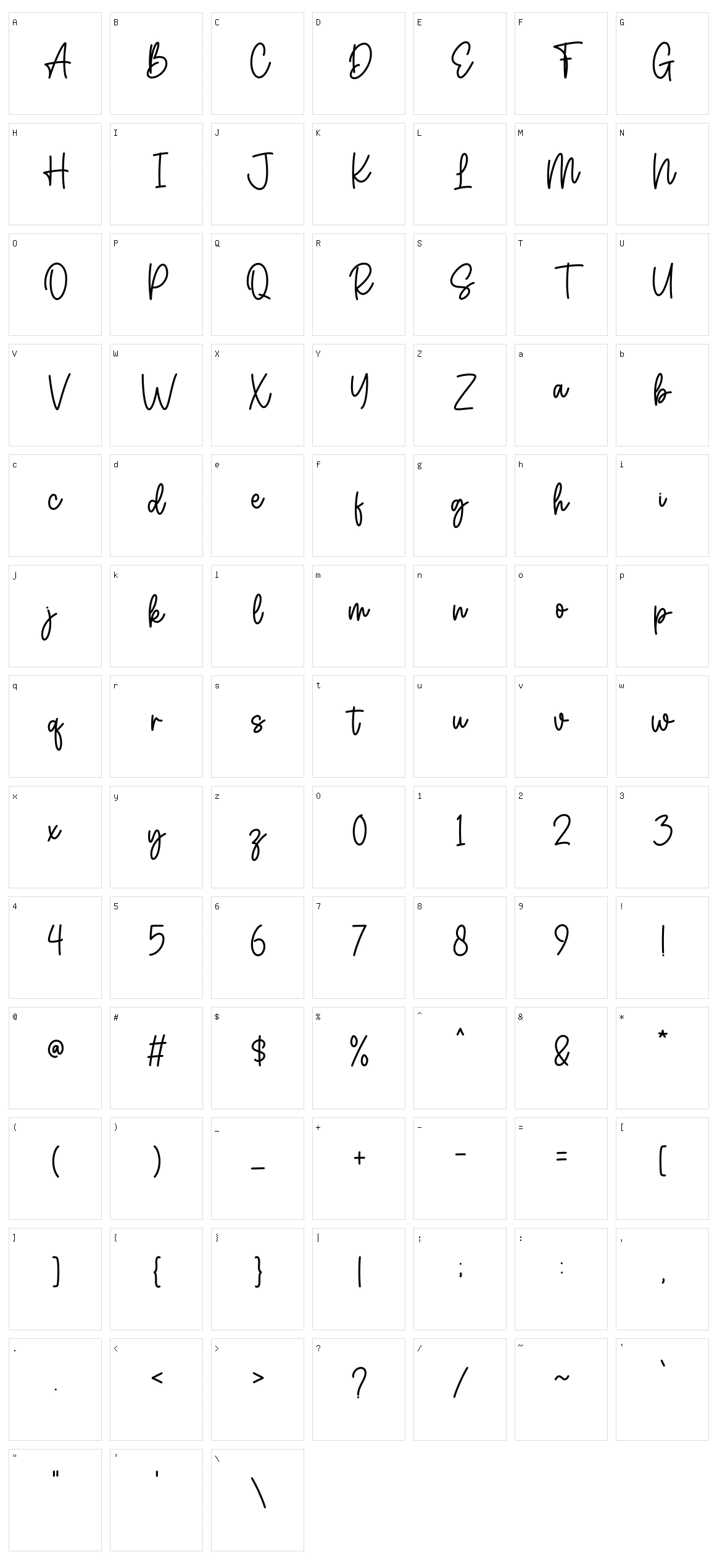
The free font Selena is carefully designed by Graphix Line Studio, showcasing a thoughtful balance of creativity and usability and falls under the Script font style. When you download the ZIP file, it contains only 358.77 KB of font files, making it lightweight and quick to download. Please review the license details below to understand permitted usage and distribution rights. If license information is not available, we recommend using this font for personal projects only or contacting the author directly for commercial usage permissions.